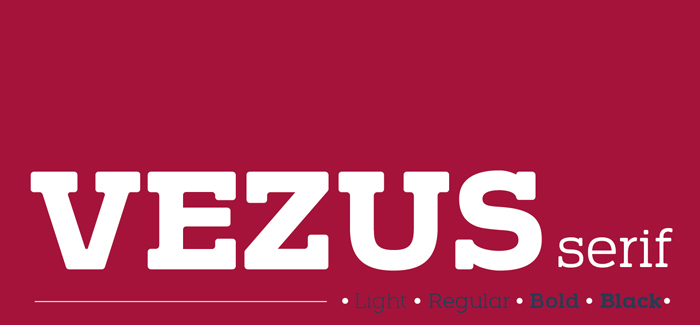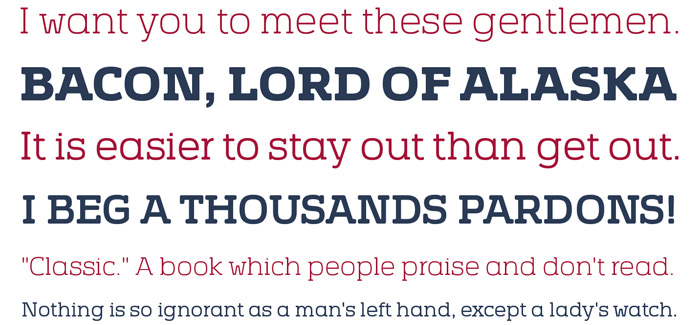
Vezus serif
Vezus serif font family is the latest addition to Tour De Force. It is the evolutionary ancestor of Vezus sans serif font featuring rounded slab serifs in the same exotic geometry. Vezus serif uses wide white spaces and open rounded apertures improving the font readability when displayed on screen or printed on different media; rounded geometrical serifs enhance the feeling of originality and make the entire face look softer yet comfortable and friendly. Verzus is developed in 4 different weights with very noticable width difference between each of the fonts. Open type multilingual diacritics are available too.